Newspapers typically use serif fonts because they are easier to read.
Newspaper Fonts on Google Docs
Here are 15 newspaper fonts that you can use on Google Docs:
1. Newsreader
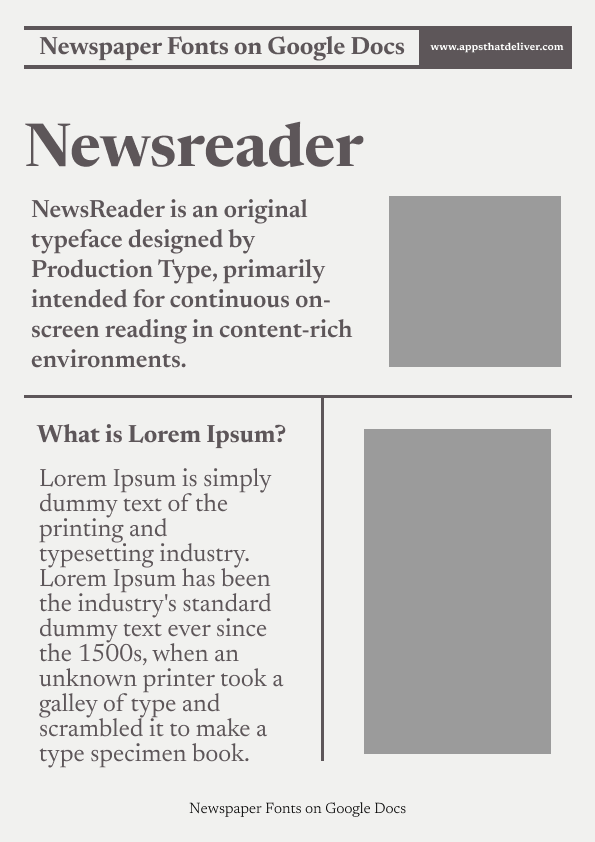
2. Times New Roman
3. Coustard
4. CG Times
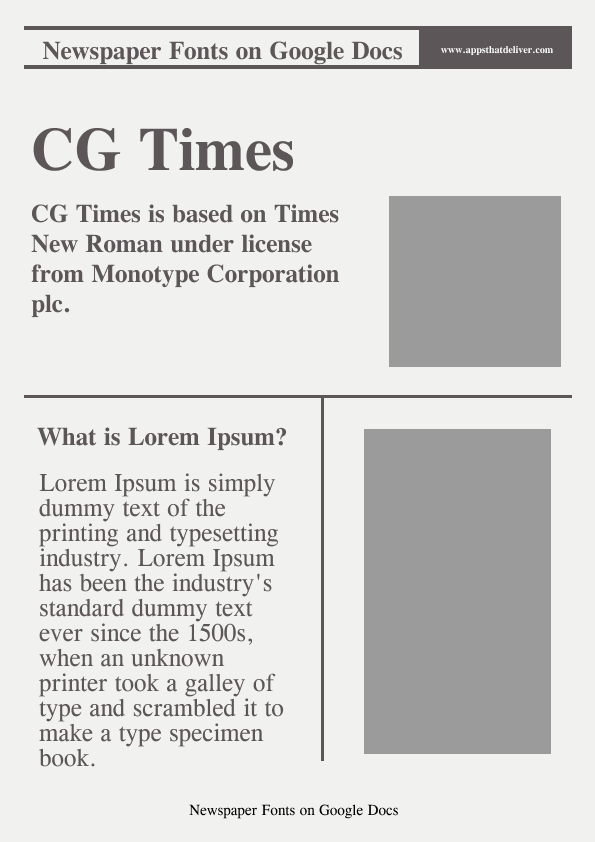
5. Gowun Batang
6. Libre Baskerville
7. EB Garamond
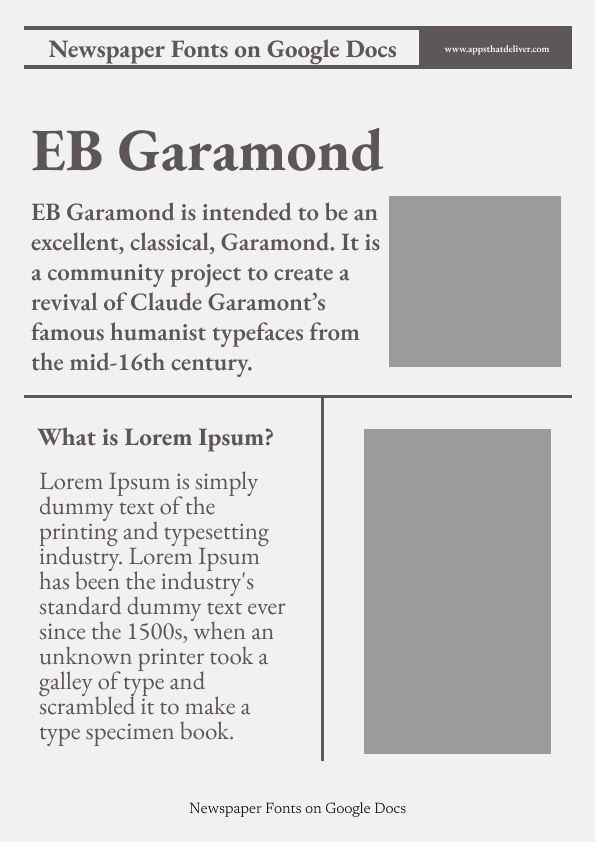
8. Abril Fatface
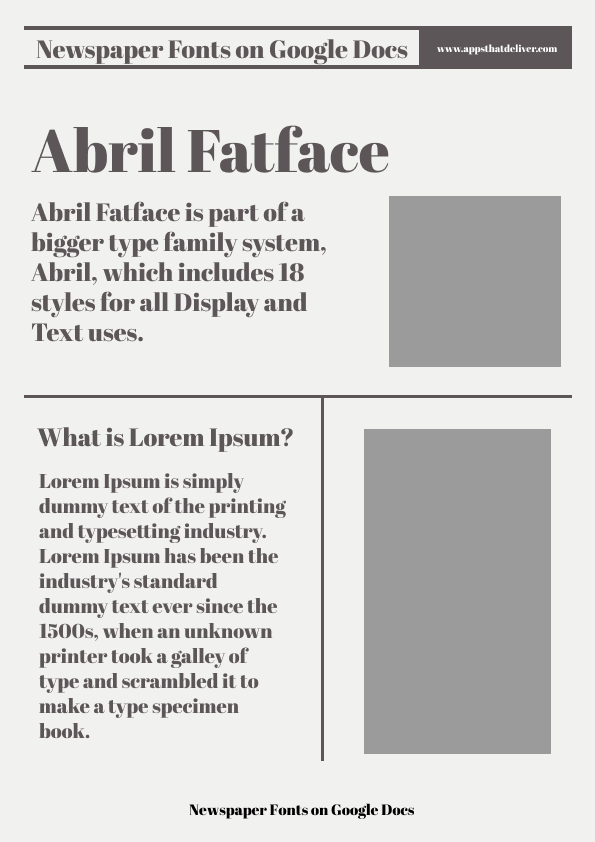
9. Old Standard TT
10. Playfair Display SC
11. Cormorant Infant
12. IM Fell English SC
13. Goudy Bookletter 1911
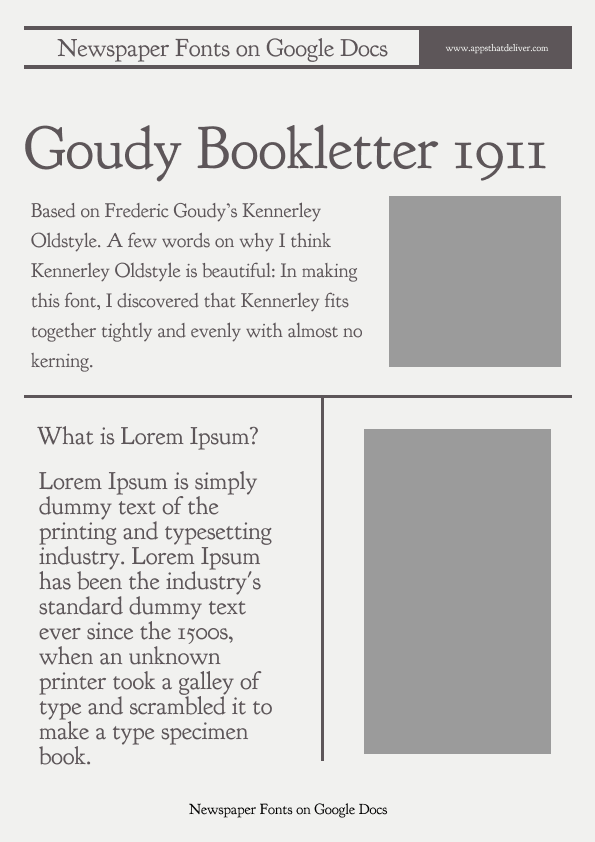
14. Cormorant Upright
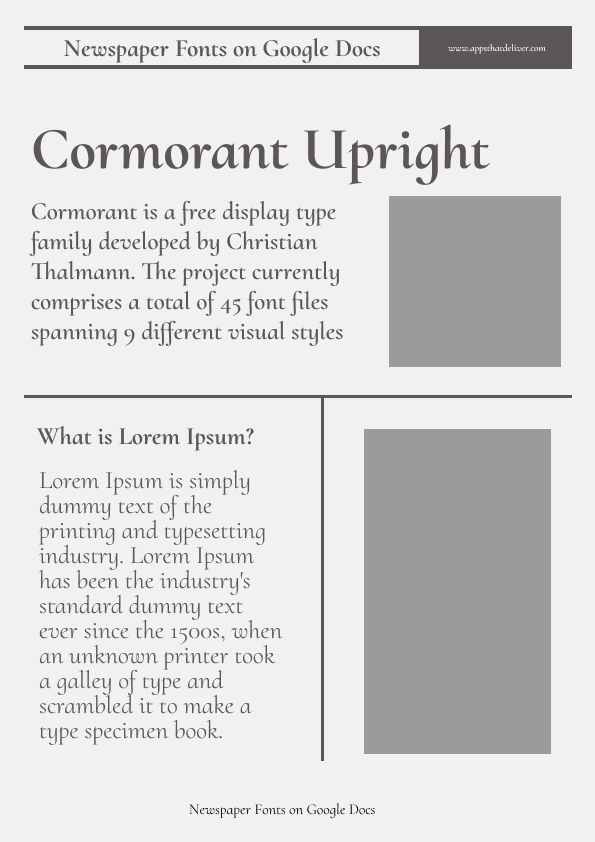
15. Port Lligat Slab
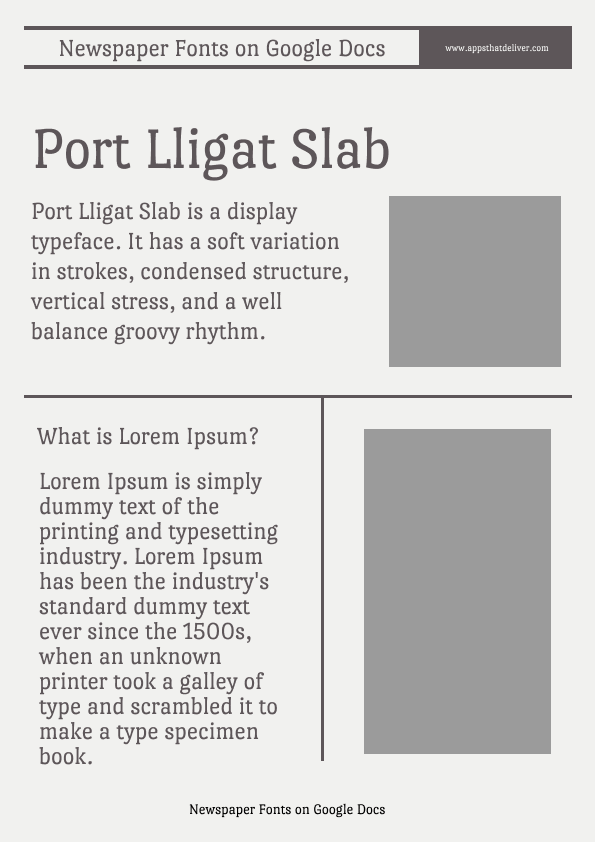
FAQs
What Font Do Newspapers Use?
Newspapers usually use serif fonts like Times New Roman and Georgia.
What Font Do Newspapers Use for Headlines?
When it comes to headlines, newspapers use big and bold, eye-catching fonts. Popular options include Times New Roman, Newsreader, and Coustard.
Google Docs Newspaper Font
Here are the top five newspaper fonts for Google Docs:
- Newsreader
- Times New Roman
- Coustard
- CG Timesemplate on Google Docs?
- Gowun Batang
- Libre Baskerville
Newspaper Headline Fonts on Google Docs
Here are some newspaper headline fonts available on Google Docs:
- Newsreader
- Times New Roman
- Coustard
- CG Times
- Gowun Batang
Best Newspaper Fonts on Google Docs
Newsreader, Times New Roman, and Coustard are the best newspaper fonts on Google Docs.
What is the Newspaper Font Called on Google Docs?
Newsreader.
Newspaper Title Fonts on Google Docs
Here are some newspaper title fonts available on Google Docs:
- EB Garamond
- Abril Fatface
- Old Standard TT
- Playfair Display SC
- Cormorant Infant
Good Newspaper Fonts Google Docs
Libre Baskerville, EB Garamond, and Abril Fatface are some good newspaper fonts on Google Docs.
Old Newspaper Fonts on Google Docs
Here are some old newspaper fonts on Google Docs:
- Old Standard TT
- CG Times
- Cormorant Infant
- Goudy Bookletter 1911
- Libre Baskerville
Newspaper Like Fonts on Google Docs
Here are some newspaper like fonts on Google Docs:
- CG Times
- Gowun Batang
- Libre Baskerville
- EB Garamond
- Abril Fatface